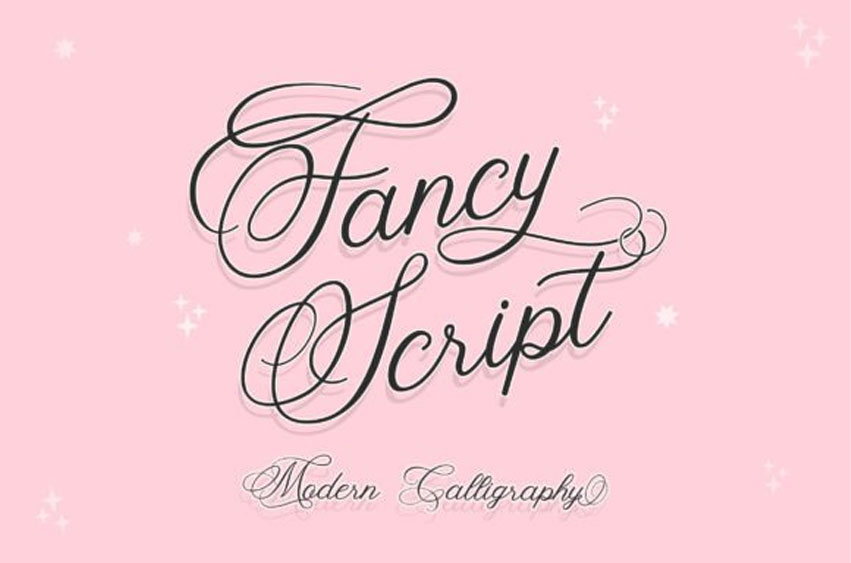
Fancy Script Font
Fancy Script Font This sophisticated font is perfect for making a statement. It has a fancy and appealing handwritten style, with an elegant and graceful flow.